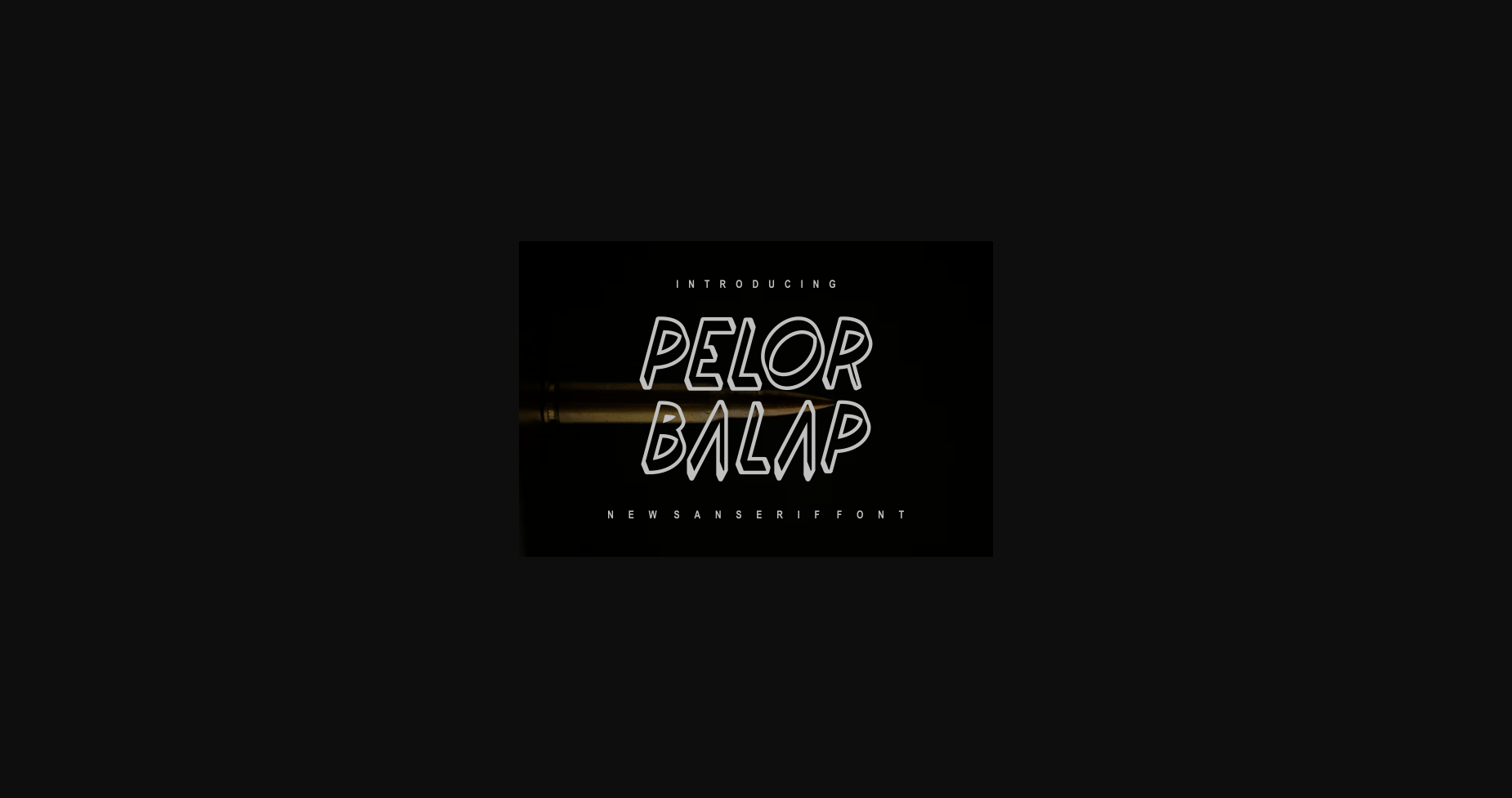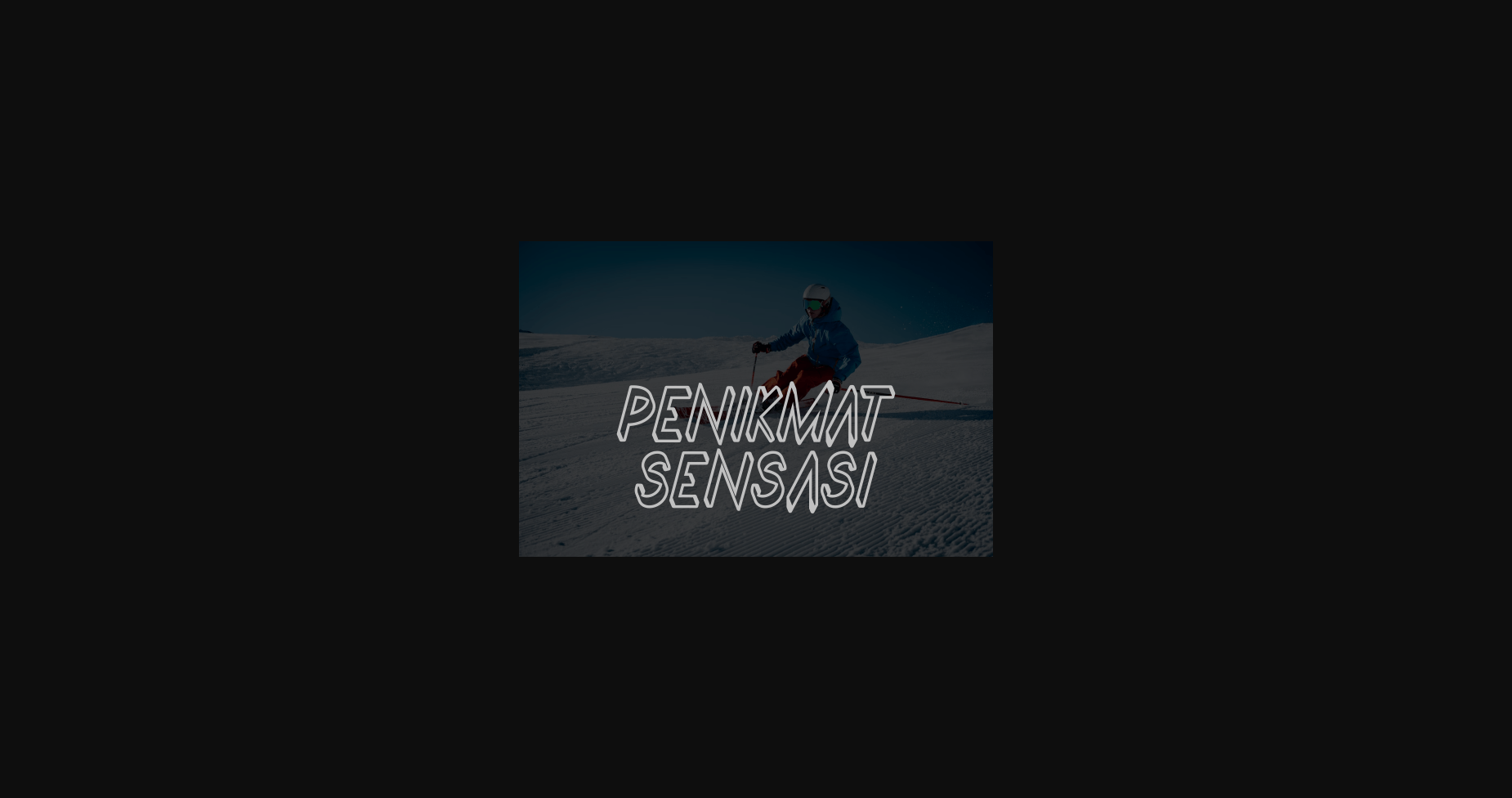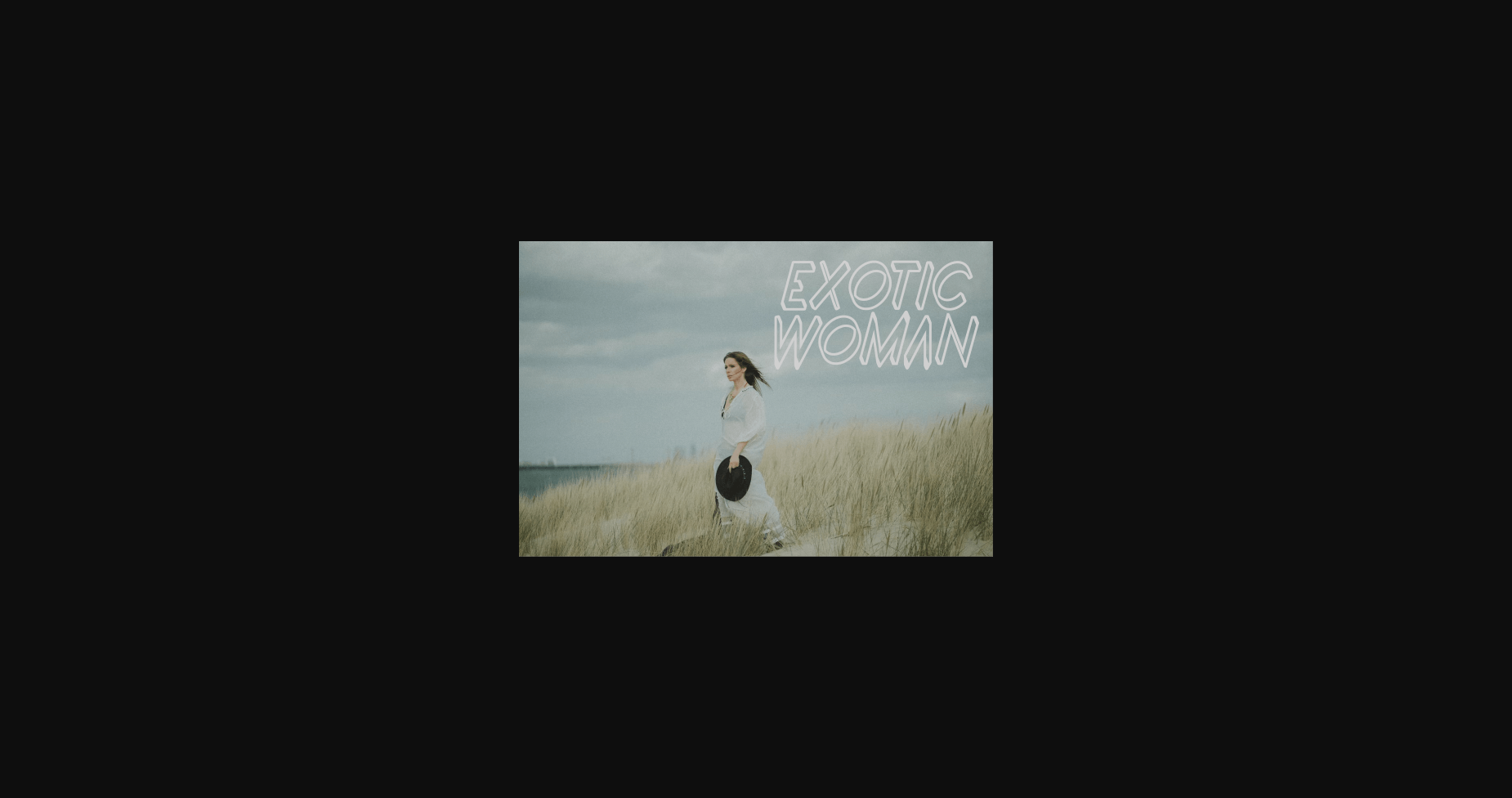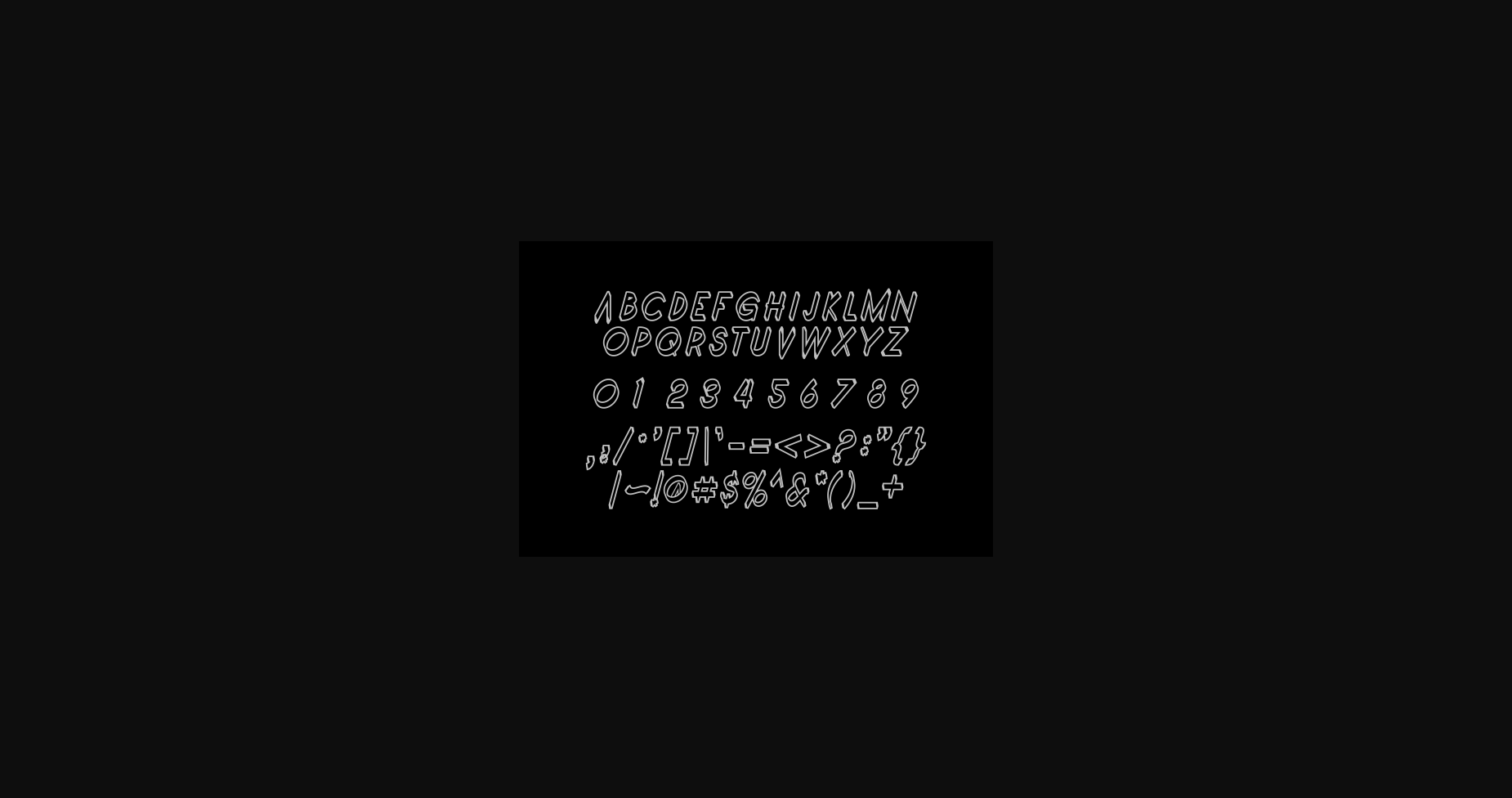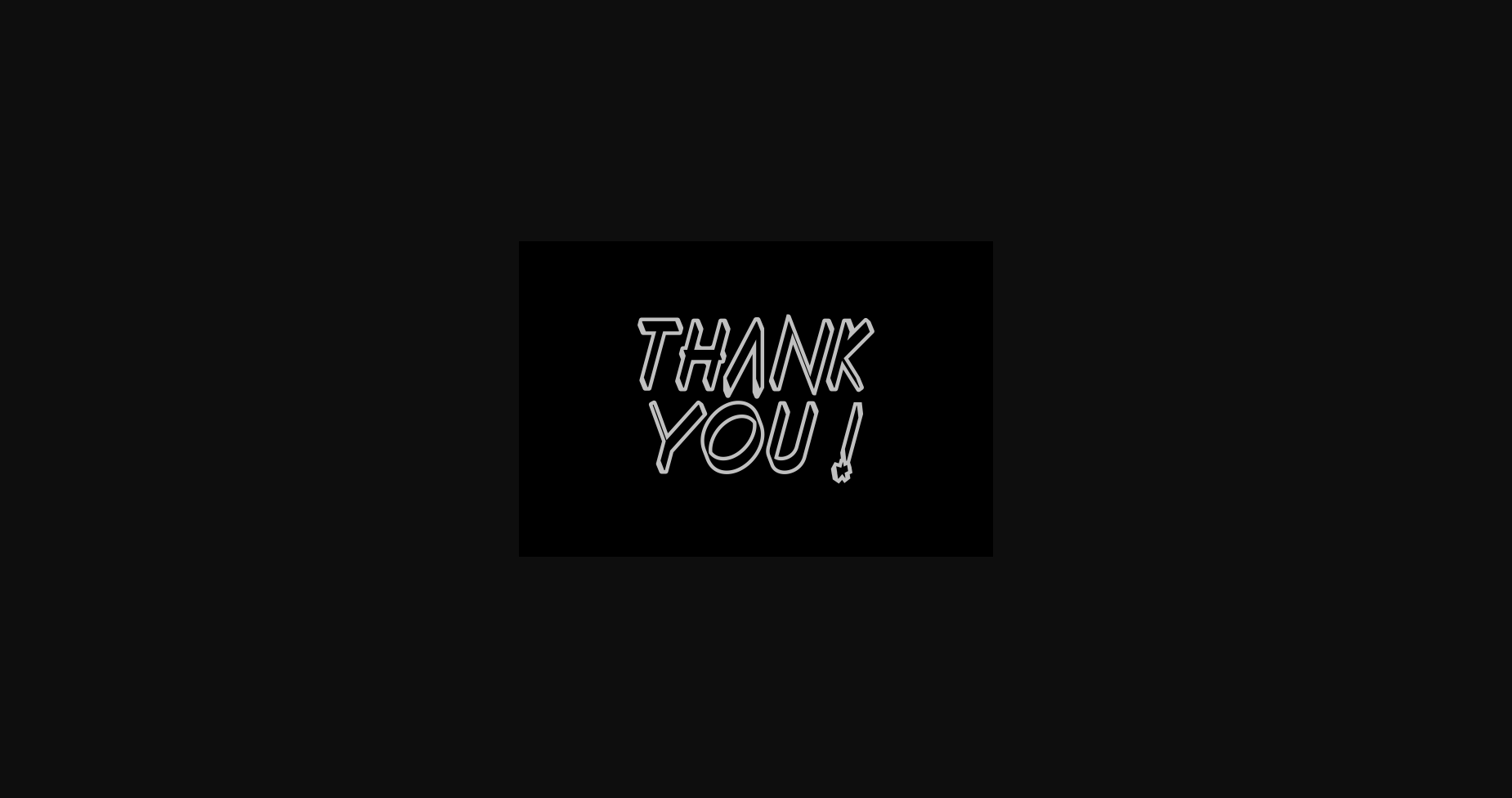
HomeSans Serif FontsPelor Balap Font Sans Serif Fonts Pelor Balap Font FacebookXPinterestWhatsApp 1 of 7 ... Pelor Balap Font Poster 2... Pelor Balap Font Poster 3... Pelor Balap Font Poster 4... Pelor Balap Font Poster 5... Pelor Balap Font Poster 6... Pelor Balap Font Poster 7... About Pelor Balap Font Pelor Balap is a clean and unique sans serif font with a modern outlied style. Its fresh letters will make sure your product doesn’t go unnoticed! DOWNLOAD NOW People also explored Bowthen Signature Font Valentine Night Font Signature Coffee Font Malikian Font Weatpoint Font Handletter Font Smoltimes Font New Journey Font Lancaster Font 435 0 TagsPelor Balap Font Previous articleFresh Think FontNext articlePoespa Indah Font LEAVE A REPLY Cancel reply Comment: Please enter your comment! Name:* Please enter your name here Email:* You have entered an incorrect email address! Please enter your email address here Website: Save my name, email, and website in this browser for the next time I comment. Personal Use Free Jelly Fish Personal Use Free Read more about this font Eigha Personal Use Free Read more about this font First Be Lucky Personal Use Free Read more about this font Antaro Personal Use Free Read more about this font BLOG Elegant Wedding Invitation Fonts – Handwritten & Script Fonts Elegant Wedding Invitation Fonts Your wedding day is one of the most important moments of your life, and every detail matters—including your invitation design. Our... Using Fonts in Digital Marketing: Tips to Strengthen Your Brand Identity Free Fonts Risk: Why Free Fonts Can Be Dangerous for Designers Top 7 Google Fonts Alternatives for Faster and Privacy-Friendly Web Design (2025)